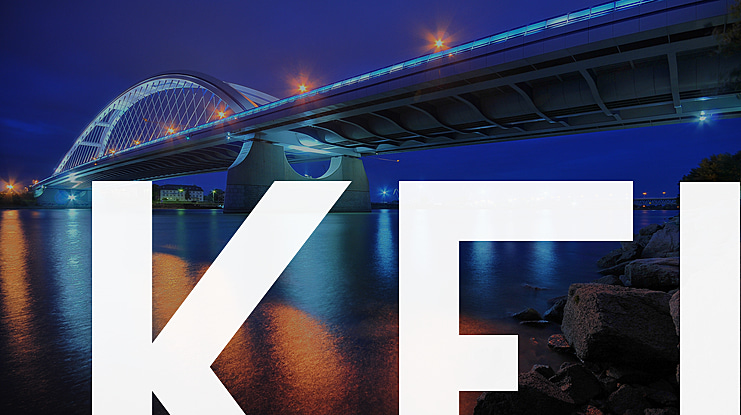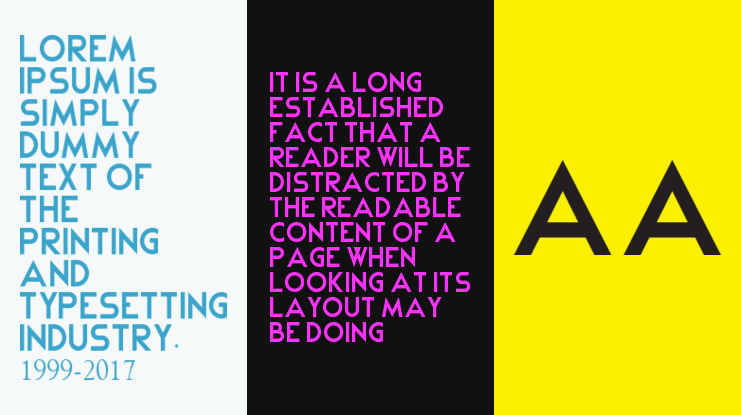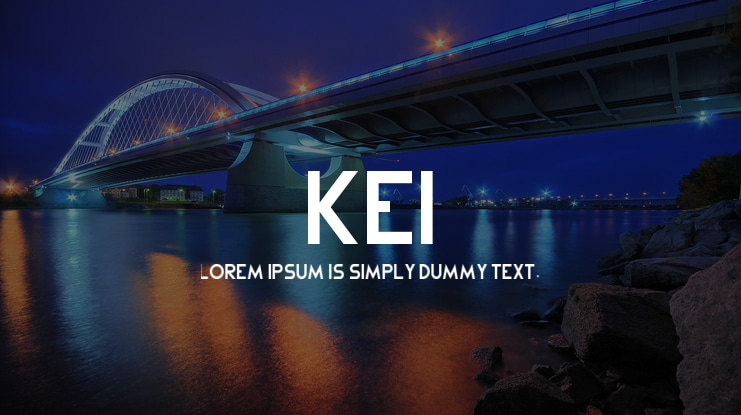
Kei Display Font - a new font display with a clean & bold feel with a futuristic modern style, perfect for any extraordinary project that requires an elegant & minimalist taste.